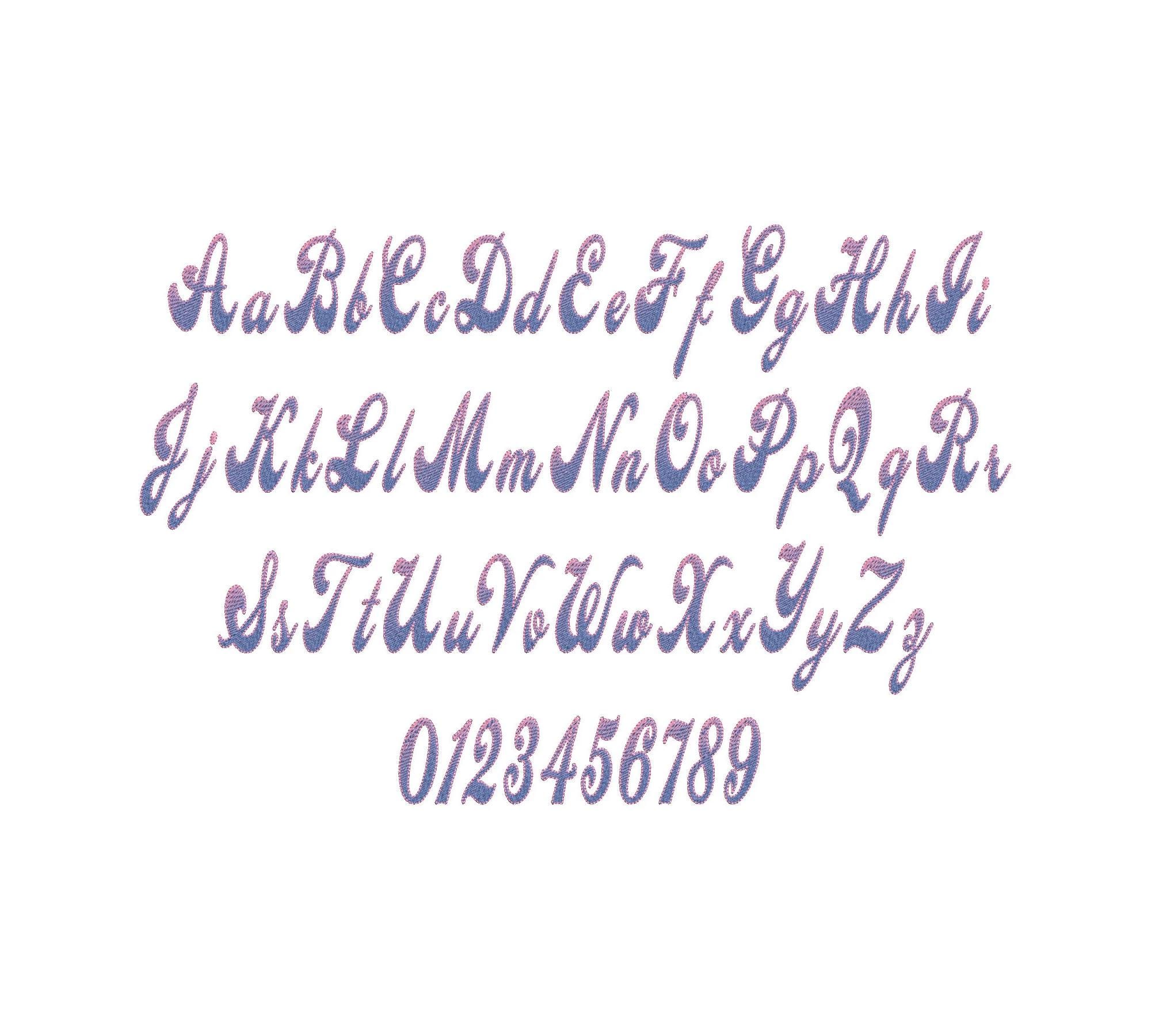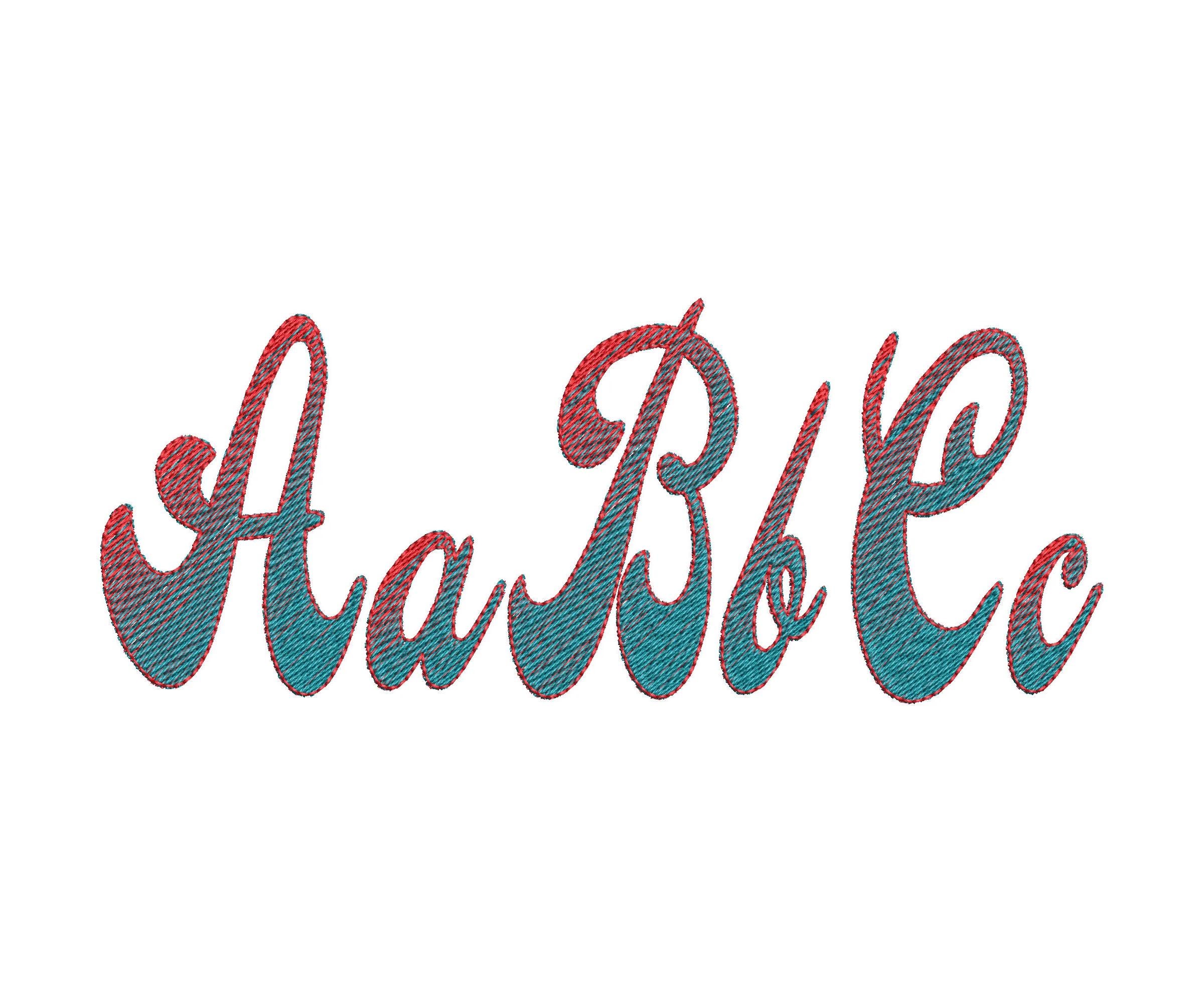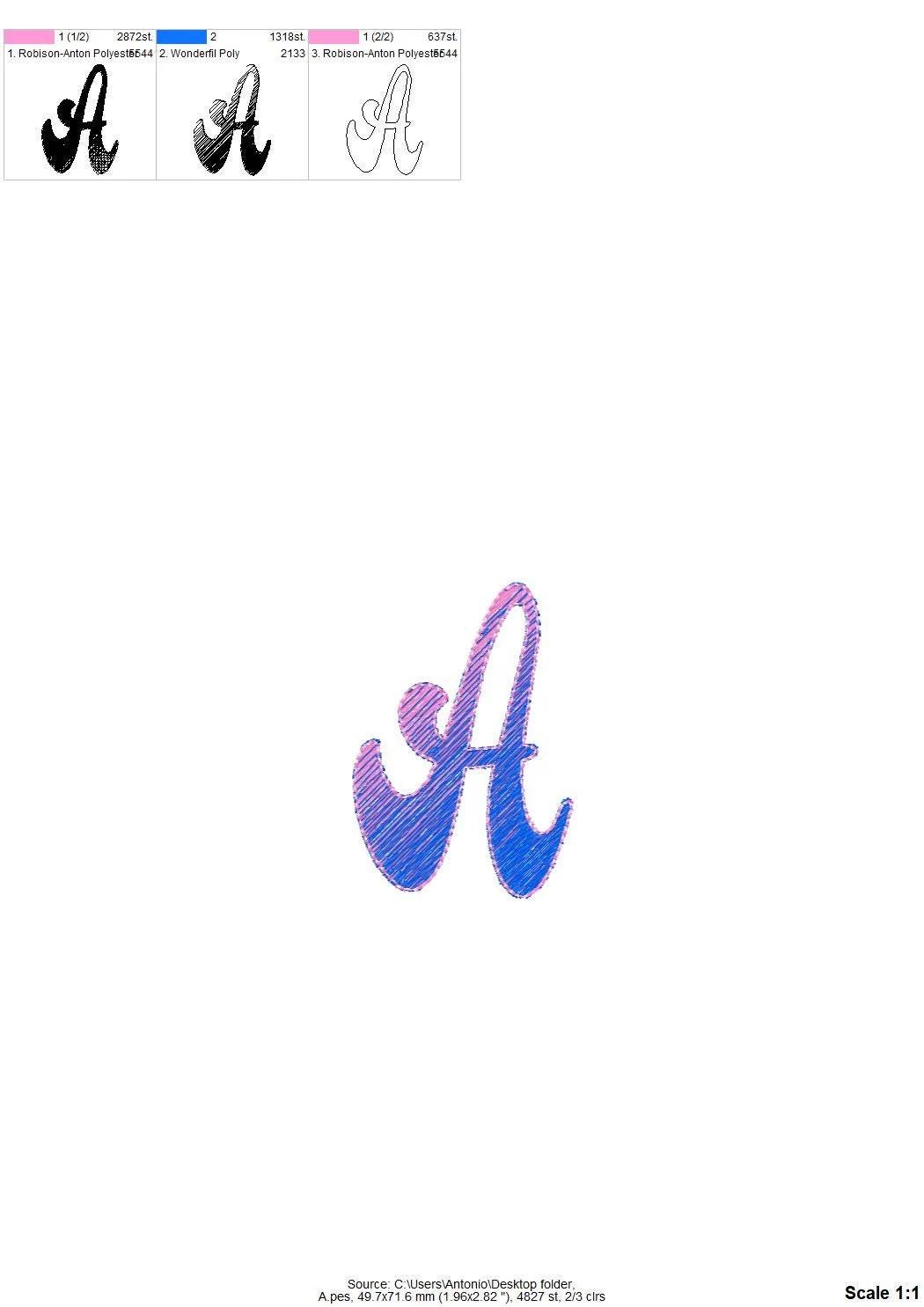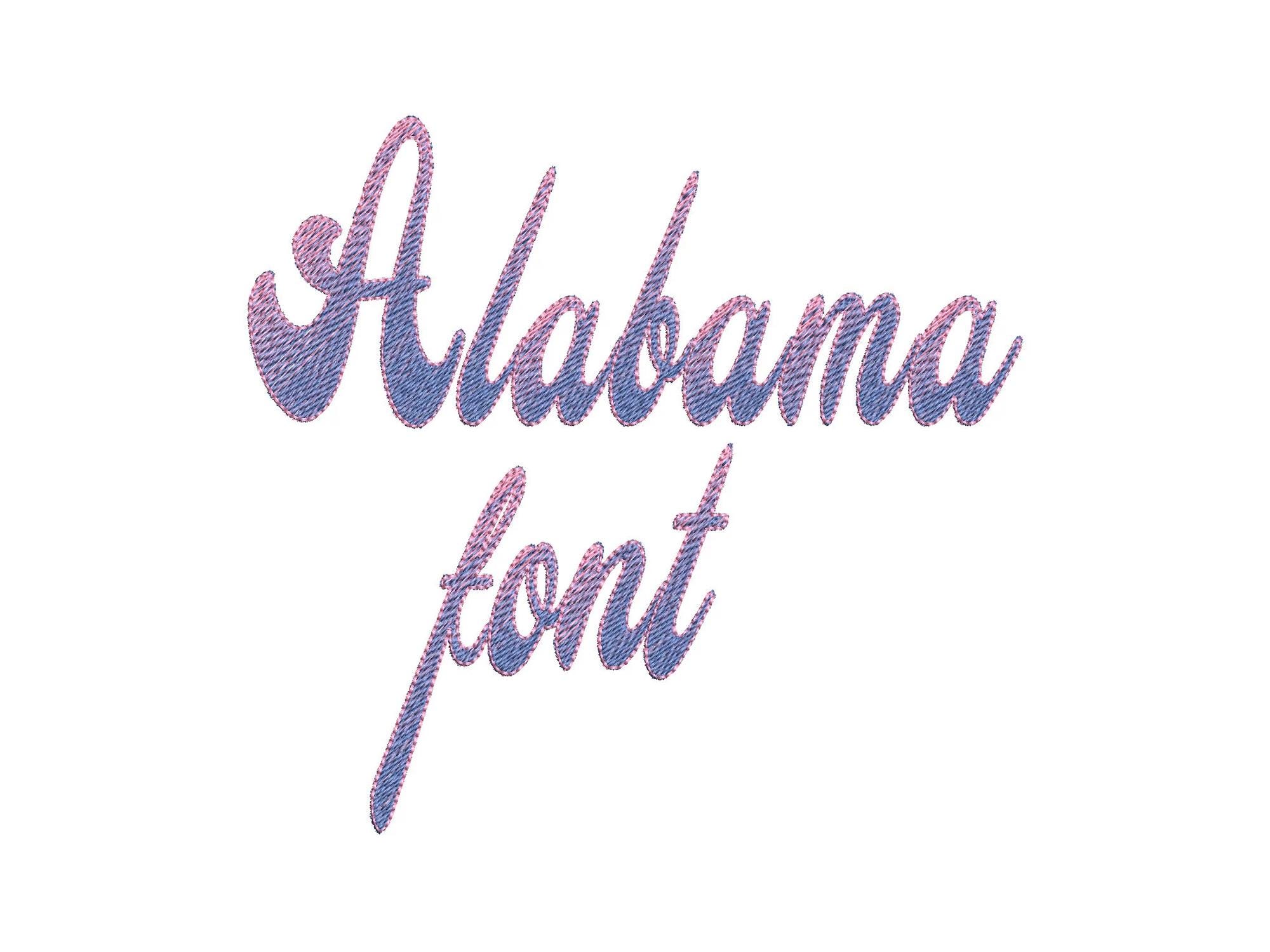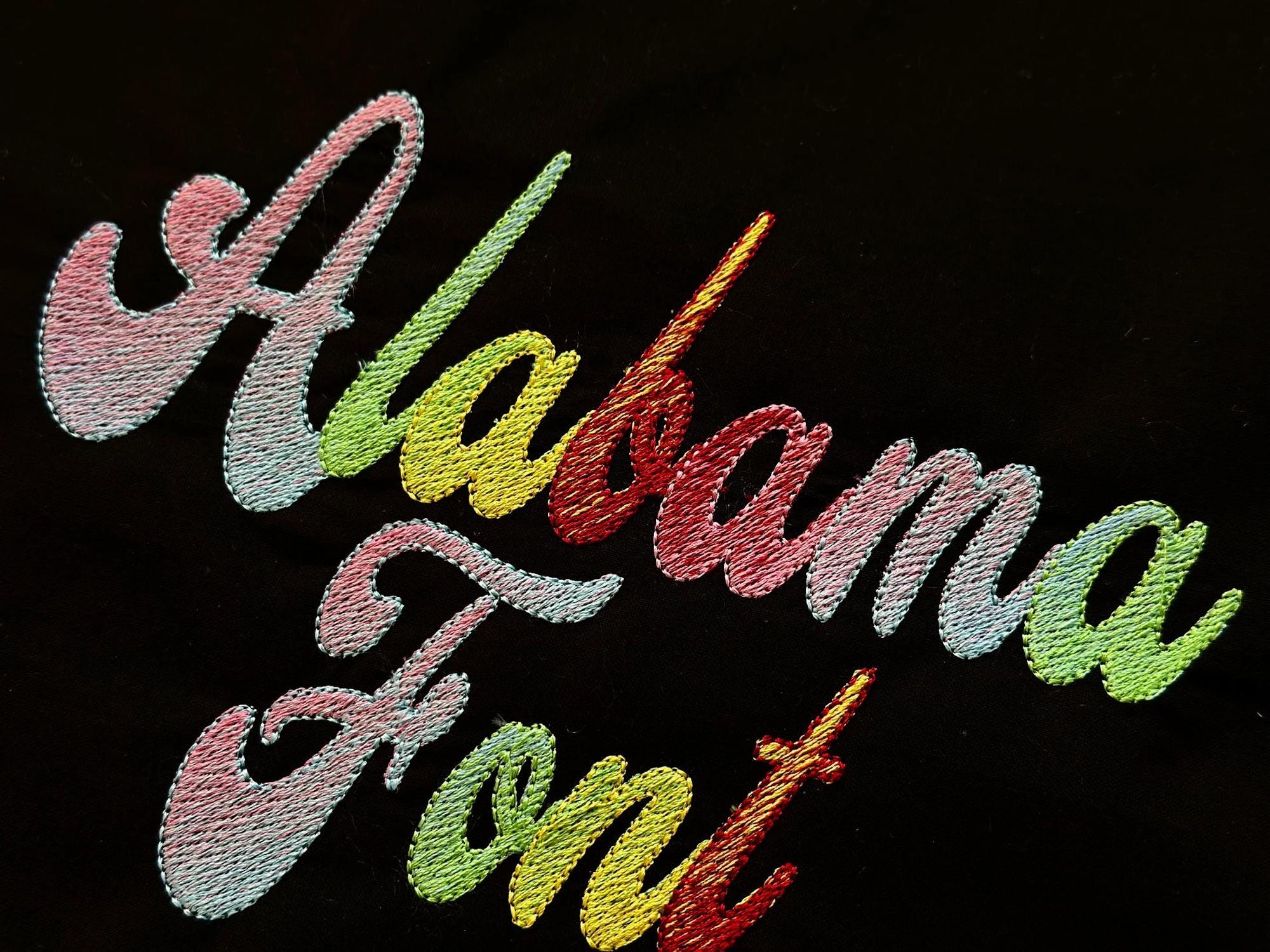
Gradient ombre iridescent effect Font Alabama alphabet Monogram letters machine embroidery designs sizes 1.5 up to 5 inches, NO special thread, BX included
No special thread needed! Amazing iridescent effect!
The letters are stitched using regular solid color embroidery threads (not variegated).
The pattern itself creates the iridescent effect - each letter is filled with two colors. First, stitch with the initial color, then the machine will stop so you can rethread with the second color. Finally, the third color is used for the outline.
Entire alphabet uppercase and lowercase letters, and numbers.